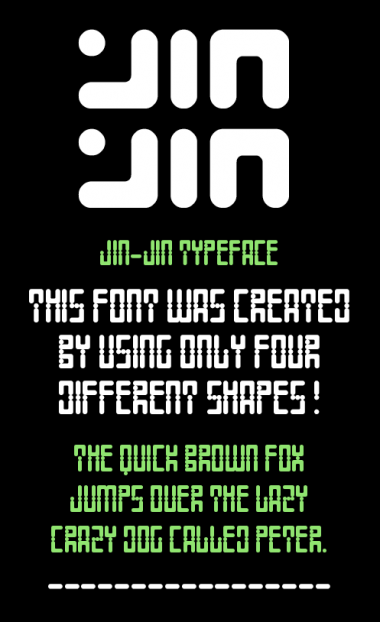
I tried to create something different by using only the four different very simple shapes you can see in my Example (the white logo at the top). My only problem is that U and V look the same, maybe anyone knows a solution to that?